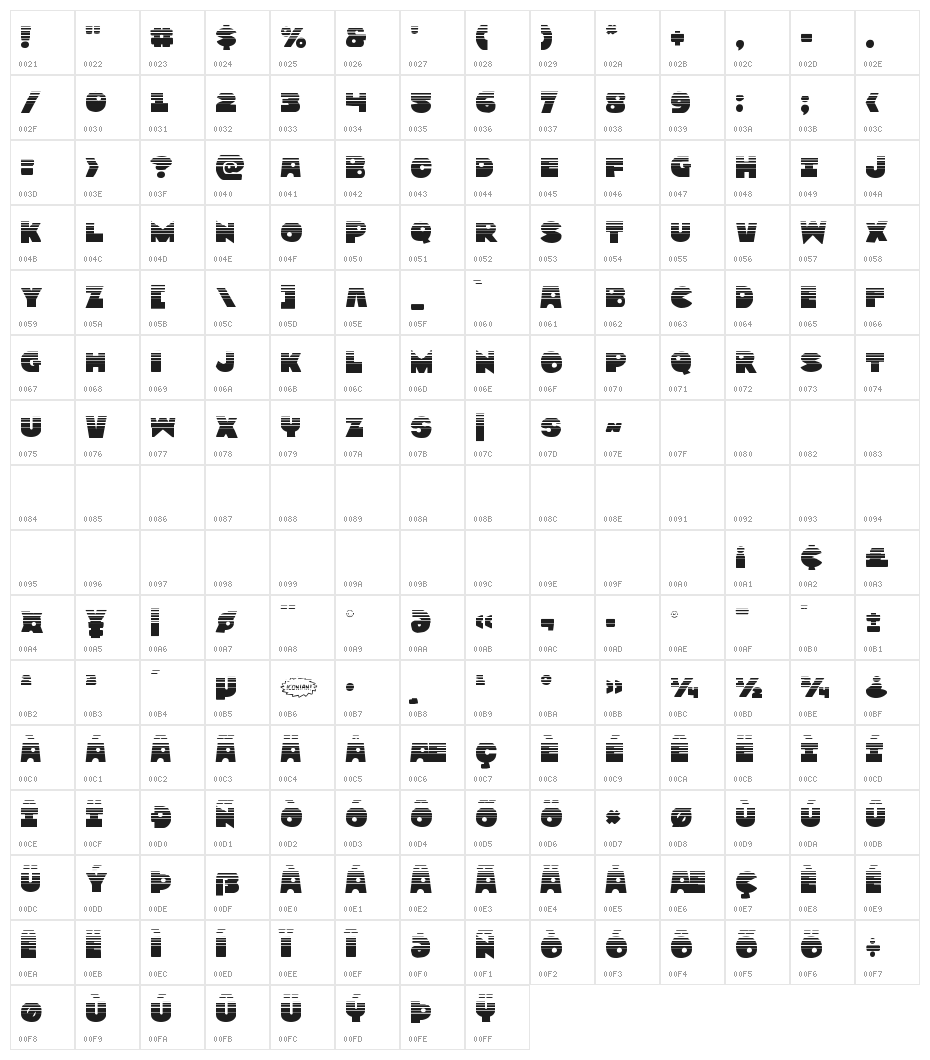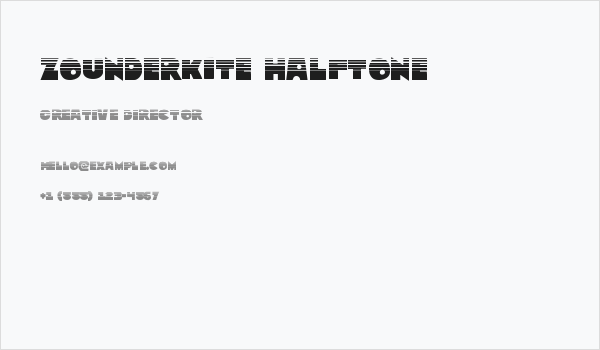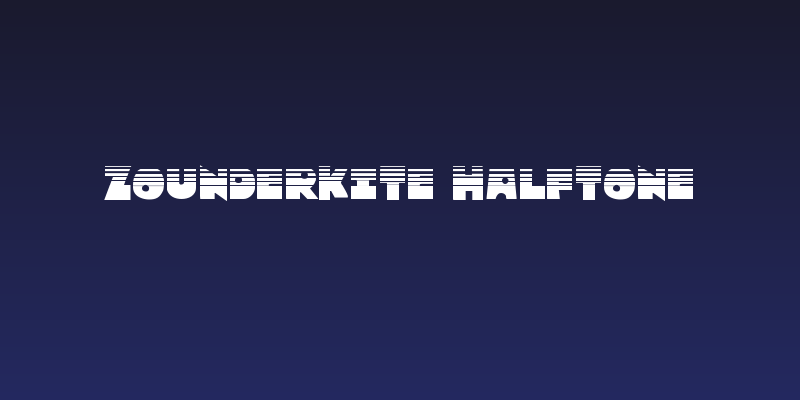
Zounderkite Halftone Font
Zounderkite Halftone Description
This font features a bold and striking design with a halftone pattern that creates a unique visual effect. The characters are constructed with solid black shapes interrupted by horizontal white lines, giving them a dynamic and textured appearance. The uppercase letters are particularly impactful, with a strong geometric structure that commands attention. The numbers and special characters maintain this bold style, ensuring consistency across all glyphs. This font is ideal for projects that require a modern and edgy look, making it suitable for posters, album covers, and branding materials.
| Proposed Projects | Ideal for posters, album covers, branding, and any project needing a bold, modern look. |